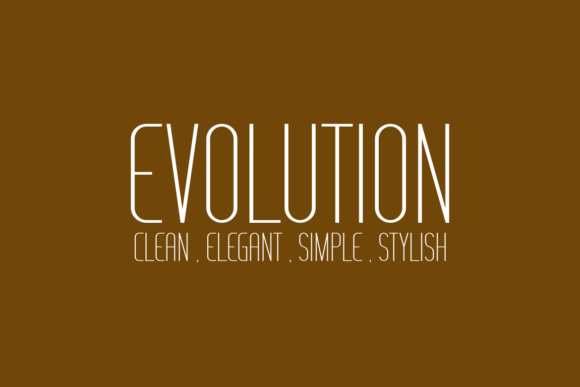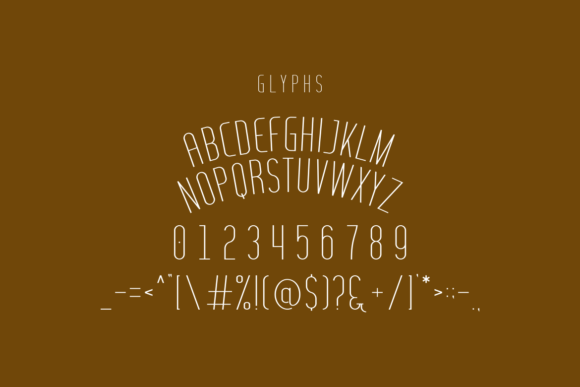
Introducing Guandhol Font: The Ultimate Modern Sans-Serif for Designers
In the world of typography, fonts play a crucial role in defining the aesthetic and tone of a design project. For designers and crafters looking for a modern and minimalistic look, Guandhol Font is an excellent choice. Specifically, Guandhol Lite is an impactful and thin sans-serif font that’s perfect for creating a sleek and contemporary design. In this article, we’ll explore the features and benefits of Guandhol Font and why it’s a must-have for your design arsenal.
Clean and Sharp Letters for a Strong Impact
Guandhol Lite boasts clean and sharp letters that give it a strong and contemporary edge. The font’s sleek appearance makes it perfect for designs that require a bold and impactful look. Whether you’re creating a logo, headline, or any other design element, Guandhol Lite is sure to make a statement. Its thin sans-serif design ensures that your text remains legible, even at smaller font sizes, making it versatile for various design applications.
Perfect for Modern and Minimalistic Designs
Guandhol Lite is specifically designed for modern and minimalistic designs. Its clean lines, simple shapes, and lack of embellishments make it an ideal choice for designers who want to create a sleek and sophisticated look. The font’s simplicity also ensures that it pairs well with other design elements, such as images and graphics, allowing you to create a cohesive and visually appealing design.
Key Features of Guandhol Font
- Impactful and Thin Design: Guandhol Lite’s unique design makes it perfect for creating a bold and impactful look.
- Clean and Sharp Letters: The font’s clean and sharp letters ensure that your text remains legible and visually appealing.
- Modern and Minimalistic: Guandhol Lite is designed for modern and minimalistic designs, making it perfect for designers who want to create a sleek and sophisticated look.
- Versatile: The font is suitable for various design applications, including logos, headlines, and body text.
Guandhol Font offers several benefits for designers and crafters, including:
- Easy to Read: The font’s clean and sharp letters ensure that your text remains easy to read, even at smaller font sizes.
- Highly Versatile: Guandhol Lite can be used for various design applications, from logos and headlines to body text and more.
- Customizable: The font can be easily customized to fit your design needs, allowing you to create a unique and personalized look.
- Time-Saving: With Guandhol Lite, you can create professional-looking designs quickly and efficiently, saving you time and effort.
How to Use Guandhol Font in Your Designs
Using Guandhol Font in your designs is easy. Here are a few tips to get you started:
- Pair it with Other Fonts: Guandhol Lite pairs well with other fonts, allowing you to create a unique and visually appealing design.
- Experiment with Font Sizes: The font’s versatility allows you to experiment with different font sizes, from large headlines to smaller body text.
- Customize the Font: Don’t be afraid to customize the font to fit your design needs. You can adjust the color, spacing, and more to create a unique look.
In conclusion, Guandhol Font is an excellent choice for designers and crafters looking for a modern and minimalistic sans-serif font. Its clean and sharp letters, sleek appearance, and versatility make it perfect for various design applications. With Guandhol Lite, you can create professional-looking designs quickly and efficiently, saving you time and effort. So why wait? Download Guandhol Font today and take your designs to the next level!